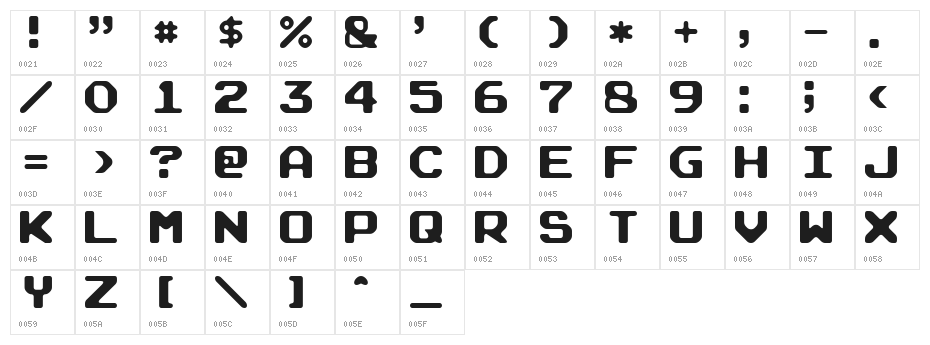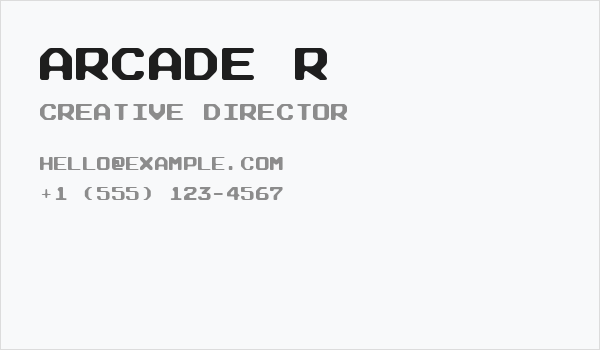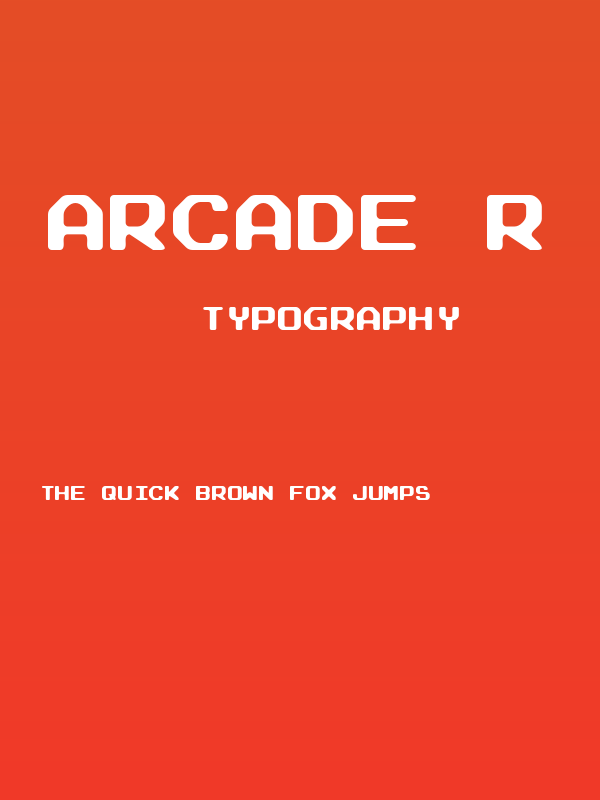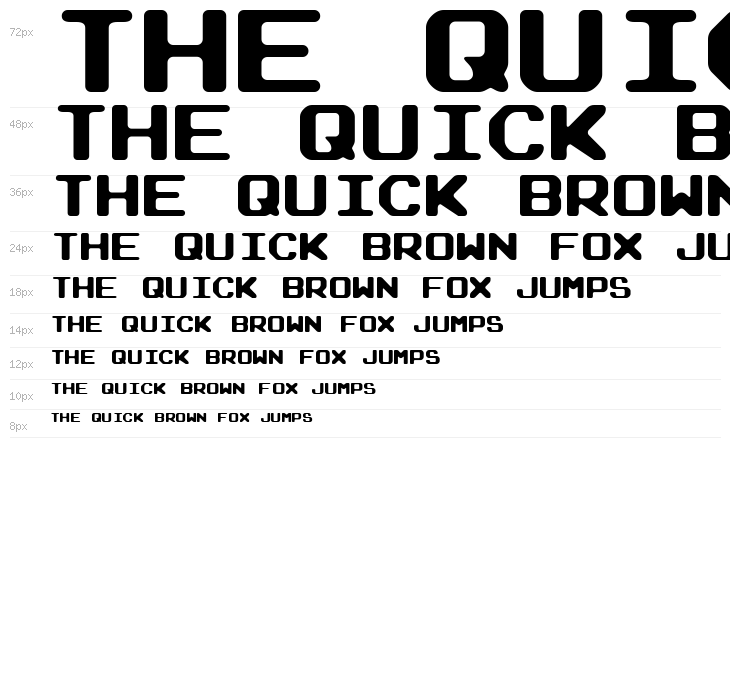
Arcade R Font
Arcade R Description
This font features a bold, geometric style with a distinctly retro, arcade-inspired aesthetic. The characters are blocky and uniform, with rounded edges that soften the overall appearance. The uppercase and lowercase letters maintain a consistent width, contributing to a cohesive look. The numerals and special characters are designed to match the boldness and geometric nature of the alphabet, making the font suitable for digital and retro-themed projects. Its strong presence and clear legibility make it ideal for headlines and display purposes.
| Overall Style | Retro, Decorative |
| Proposed Projects | Perfect for retro video game designs, digital art, posters, and branding that seeks a nostalgic or playful touch. |